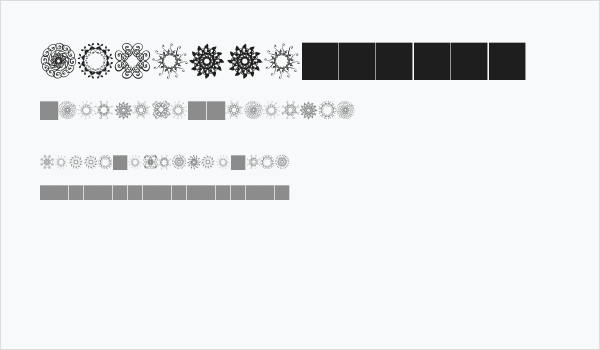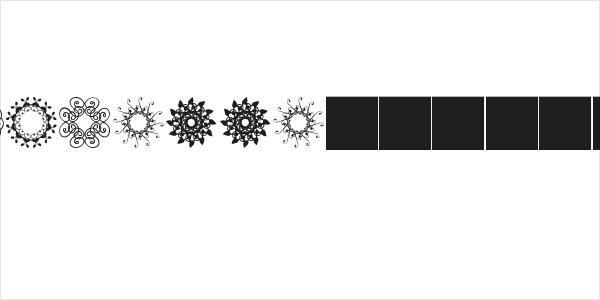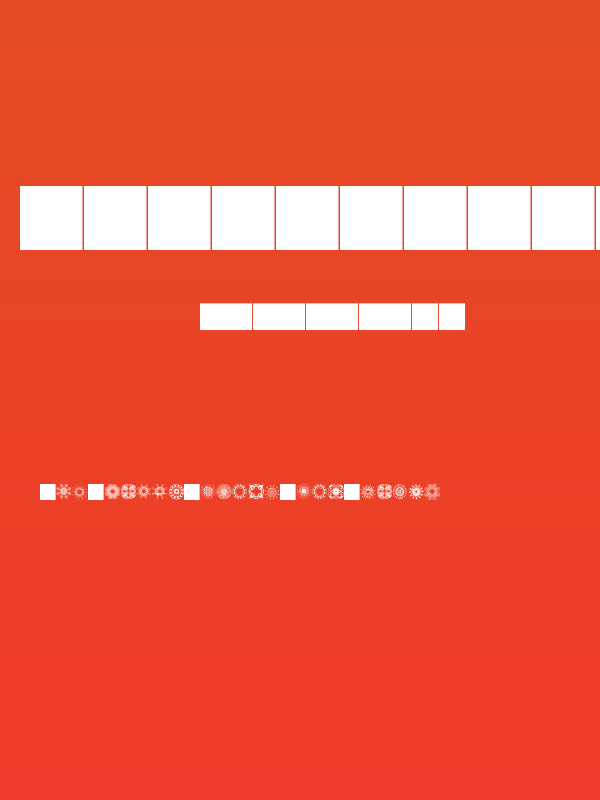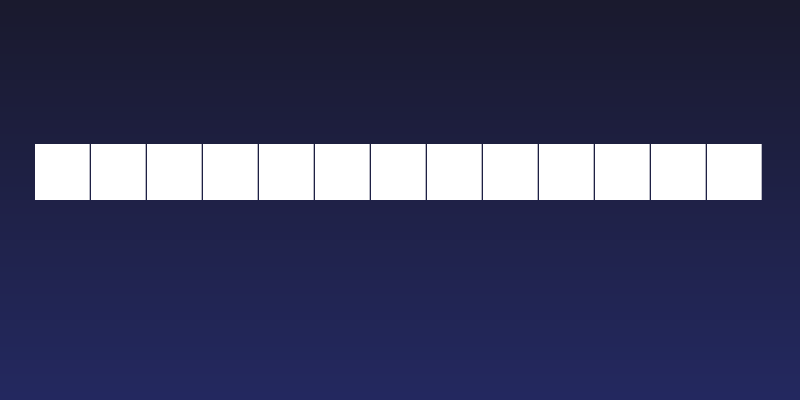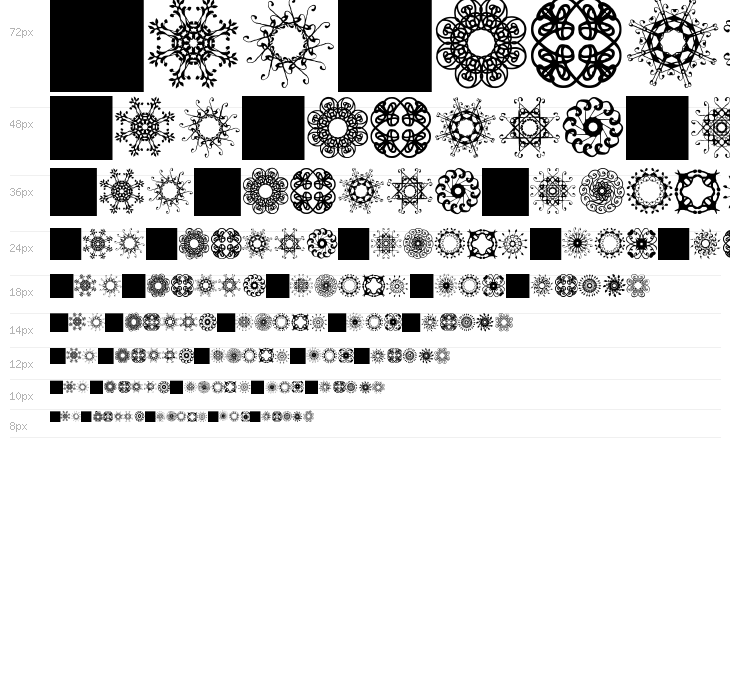
rosette110621 Font
rosette110621 Description
A decorative dingbat font featuring intricate, symmetrical rosette and mandala-like ornaments. Each glyph is a unique, highly detailed circular design, ideal for embellishments and ornamental accents.
| Overall Style | Decorative, Ornamental, Artistic |
| Use Case | Decorative elements, Borders, Accents |
| Proposed Projects | Invitations, certificates, decorative borders, scrapbooking, branding accents, packaging, digital art. |